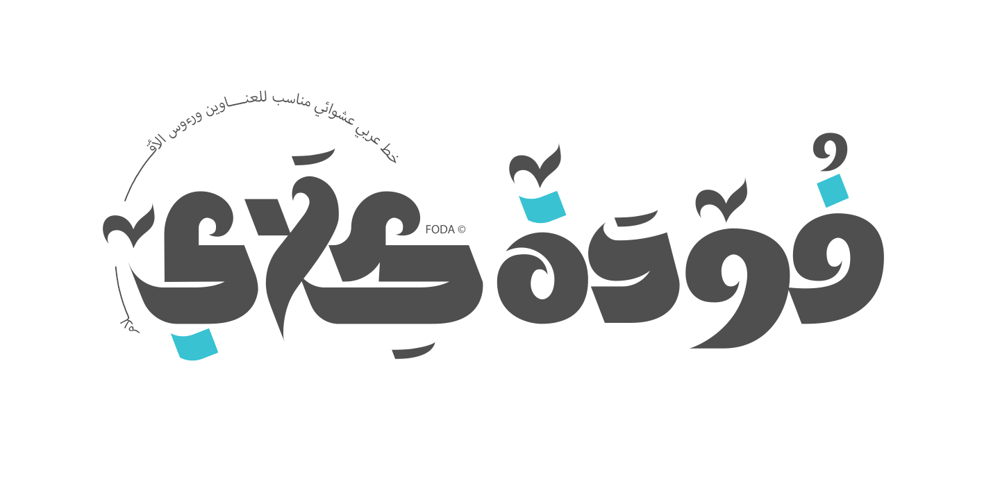
Foda Klay
Foda Klay font
Foda Klay Font Family was designed by Ahmed Eraqi, Nohamad Foda and published by Fo Da. Foda Klay contains 1 styles and family package options. Foda Klay is a modern Arabic typeface that offers a large number of glyphs and ligatures.Foda Klay is a perfect choice for Logo designs, branding, Clothing , packaging, headings, advertising, and more…